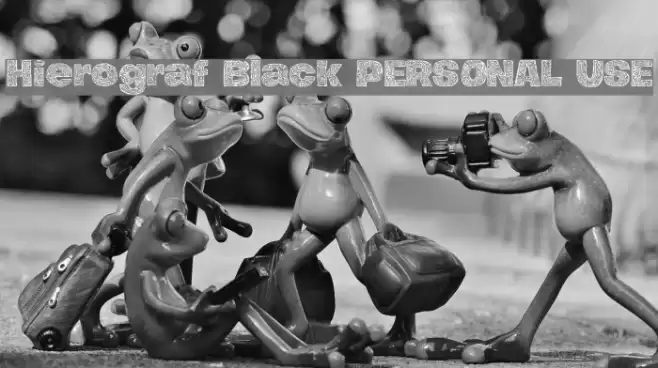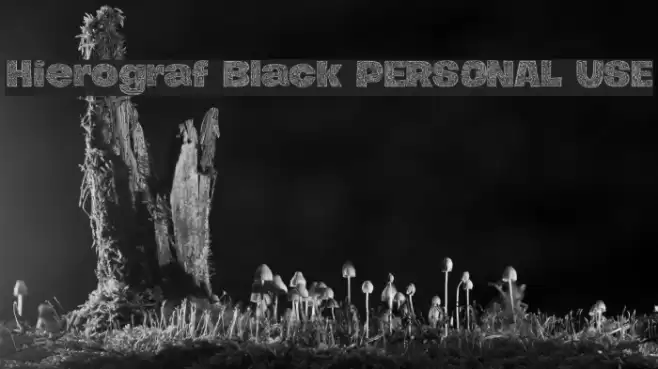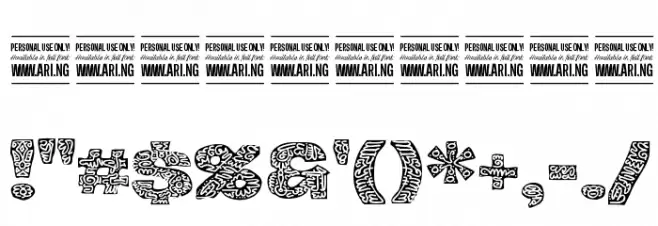
Hierograf Black PERSONAL USE Font
Hierograf Black PERSONAL USE Description
This font features a highly decorative and intricate design, with each character filled with detailed patterns and motifs. The bold and artistic style gives it a unique and eye-catching appearance, making it ideal for projects that require a standout visual element. The uppercase and lowercase letters maintain a consistent pattern-filled aesthetic, while the numbers and special characters follow the same intricate design. The overall look is playful yet sophisticated, suitable for creative and artistic applications.
A decorative font with intricate pattern-filled characters from Uncategorized fonts.
- Proposed Projects: Ideal for posters, album covers, artistic branding, and creative invitations.